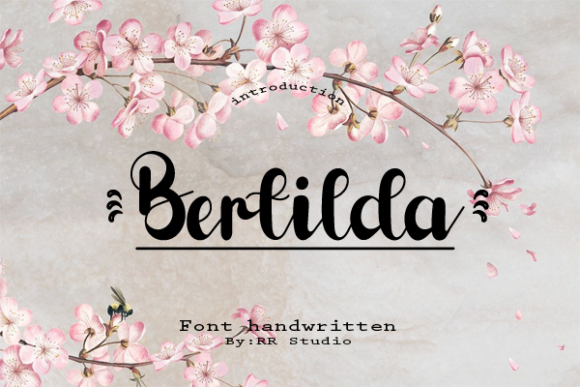
Bertilda Font
About Bertilda Font
Bertilda is a ravishing handwritten font. This versatile script font has a wide spectrum of applications ranging from greeting cards to headlines and is guaranteed to add a romantic feel to your next project.